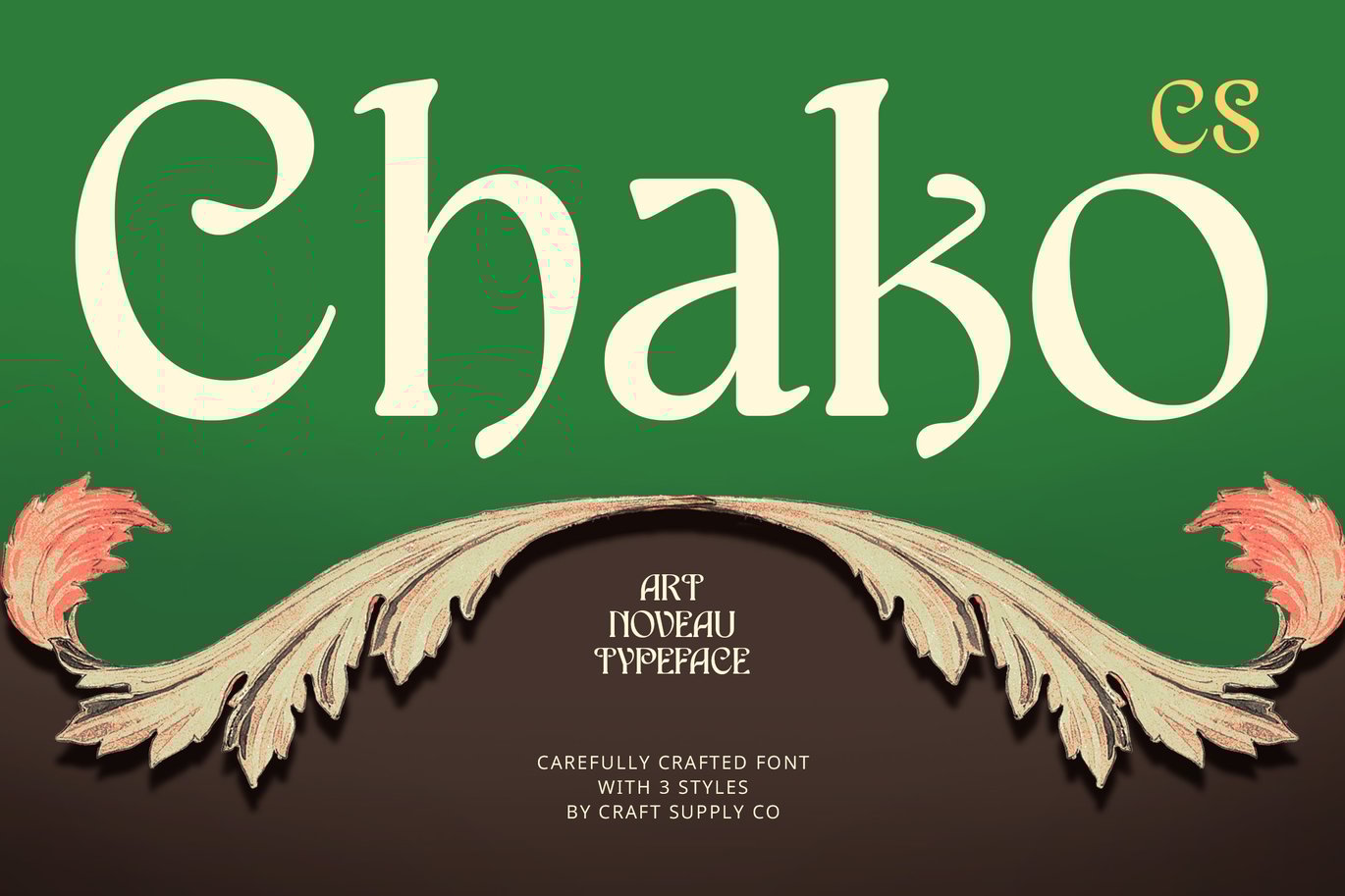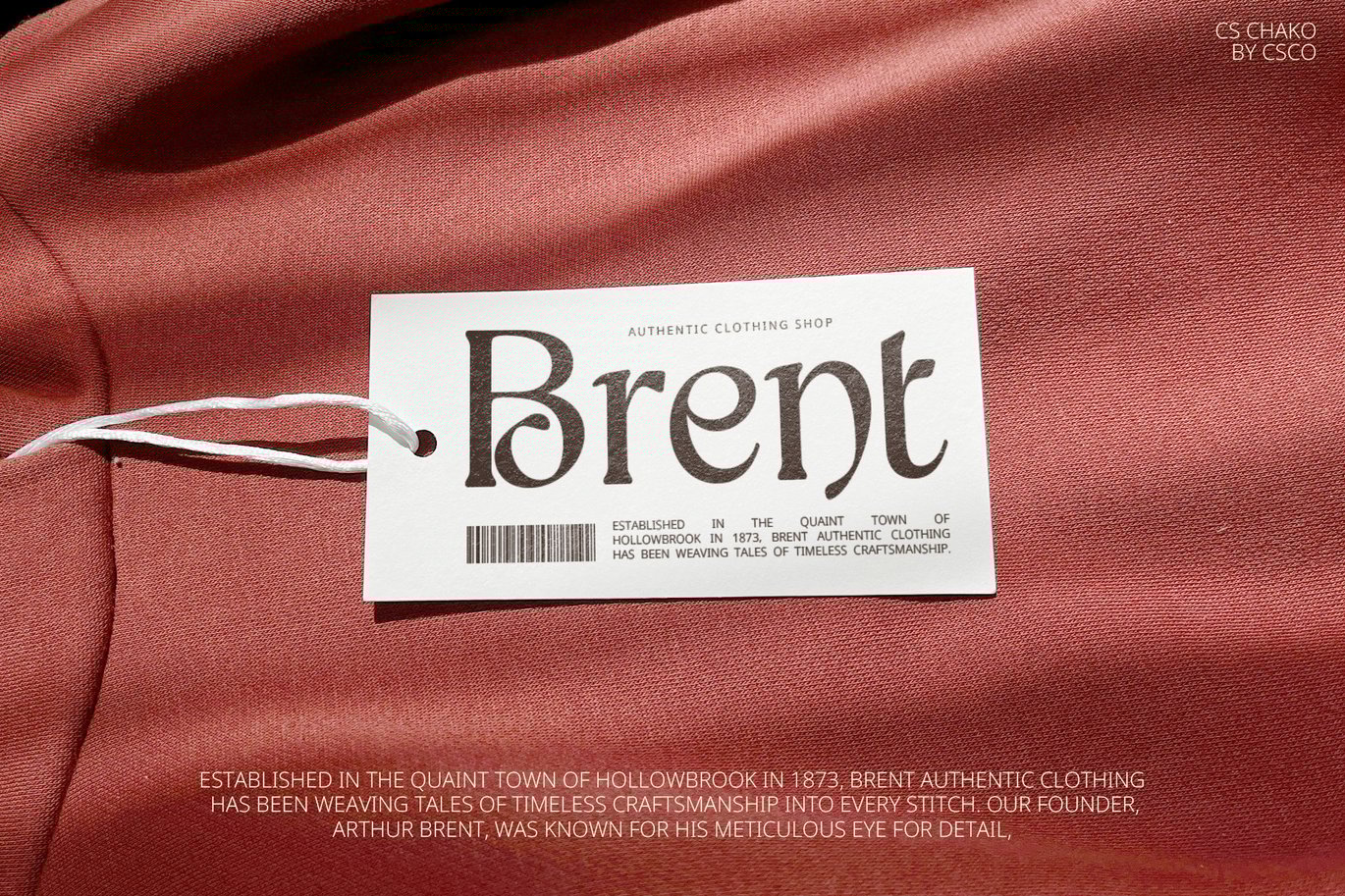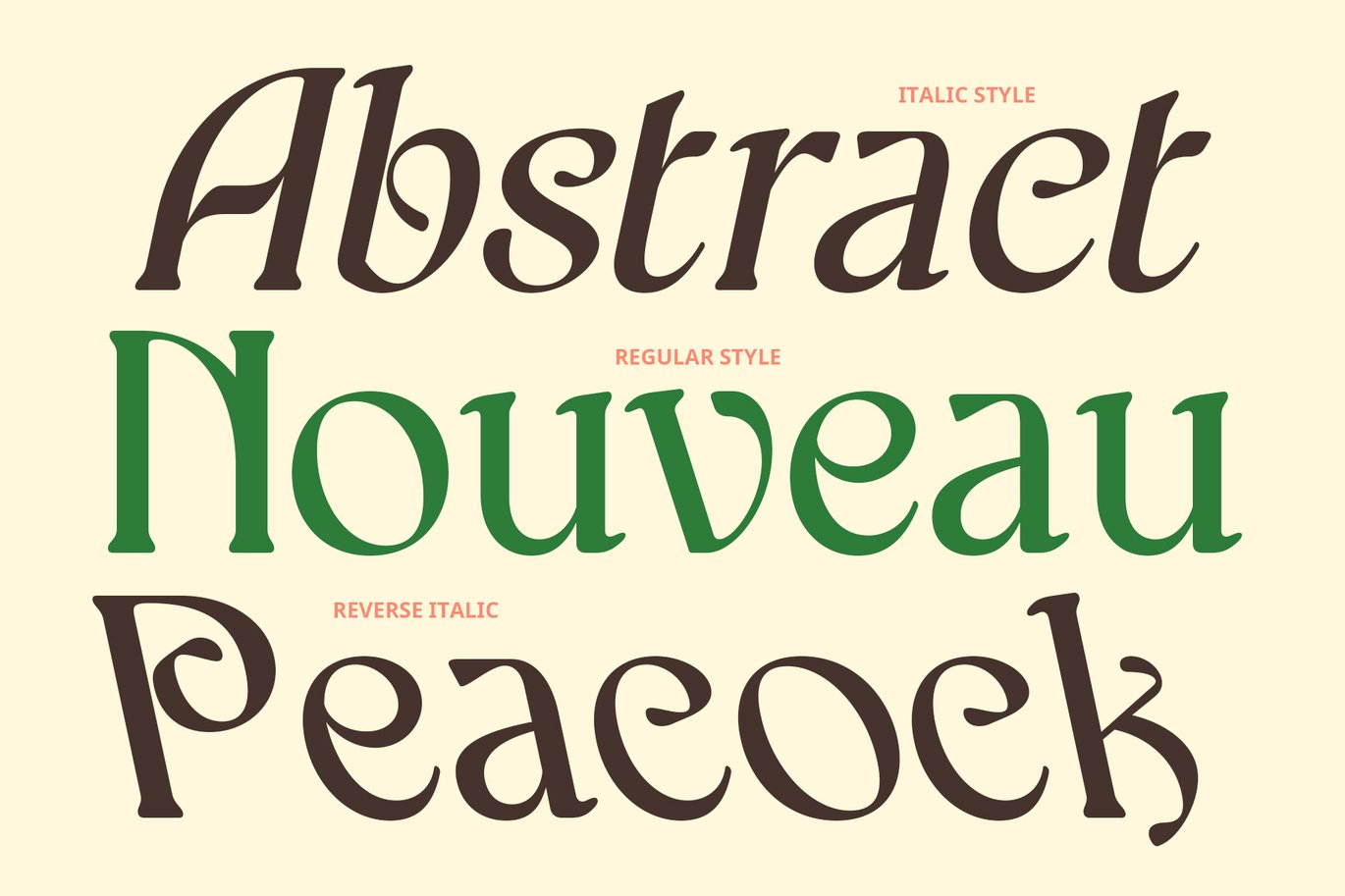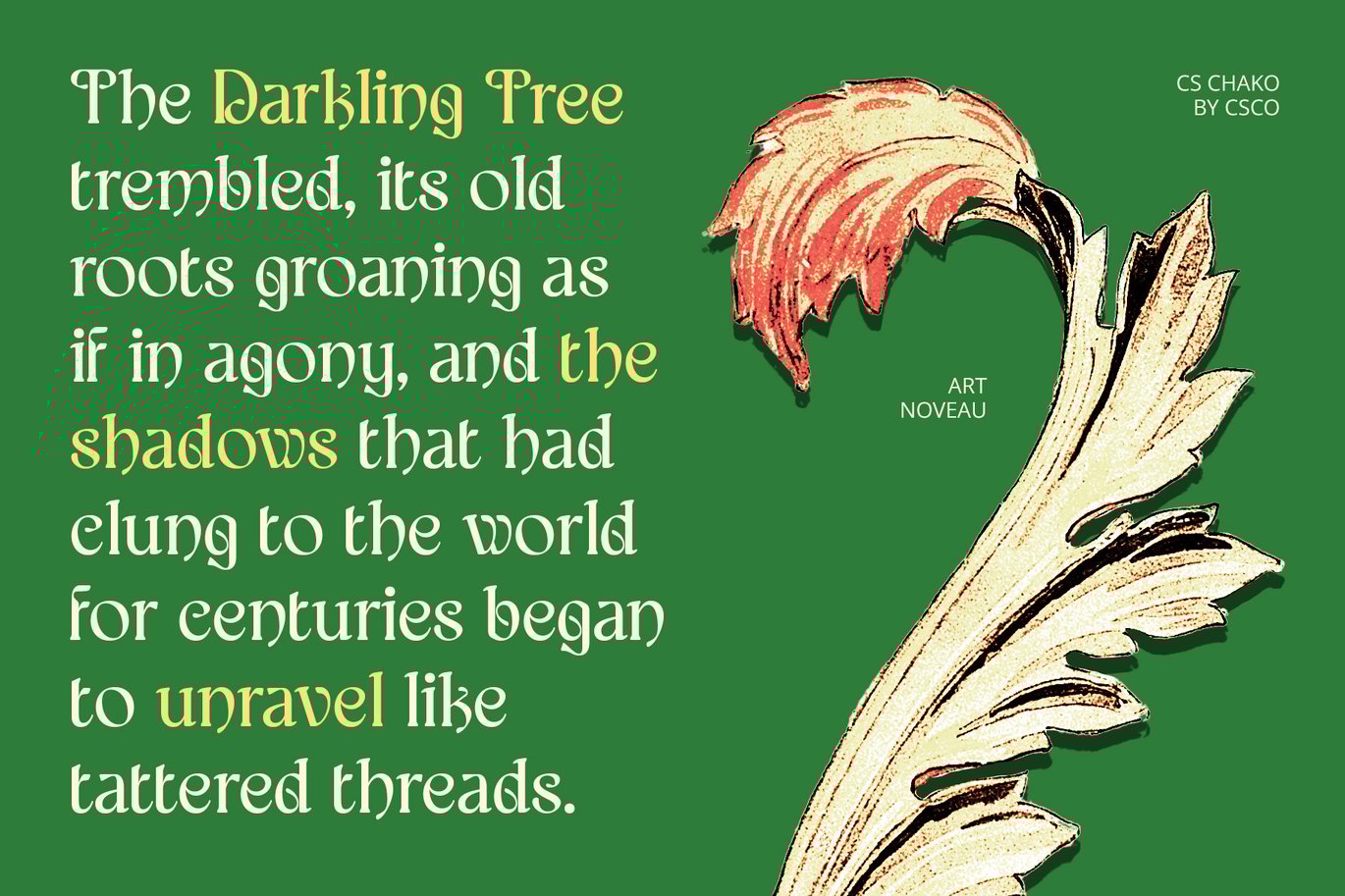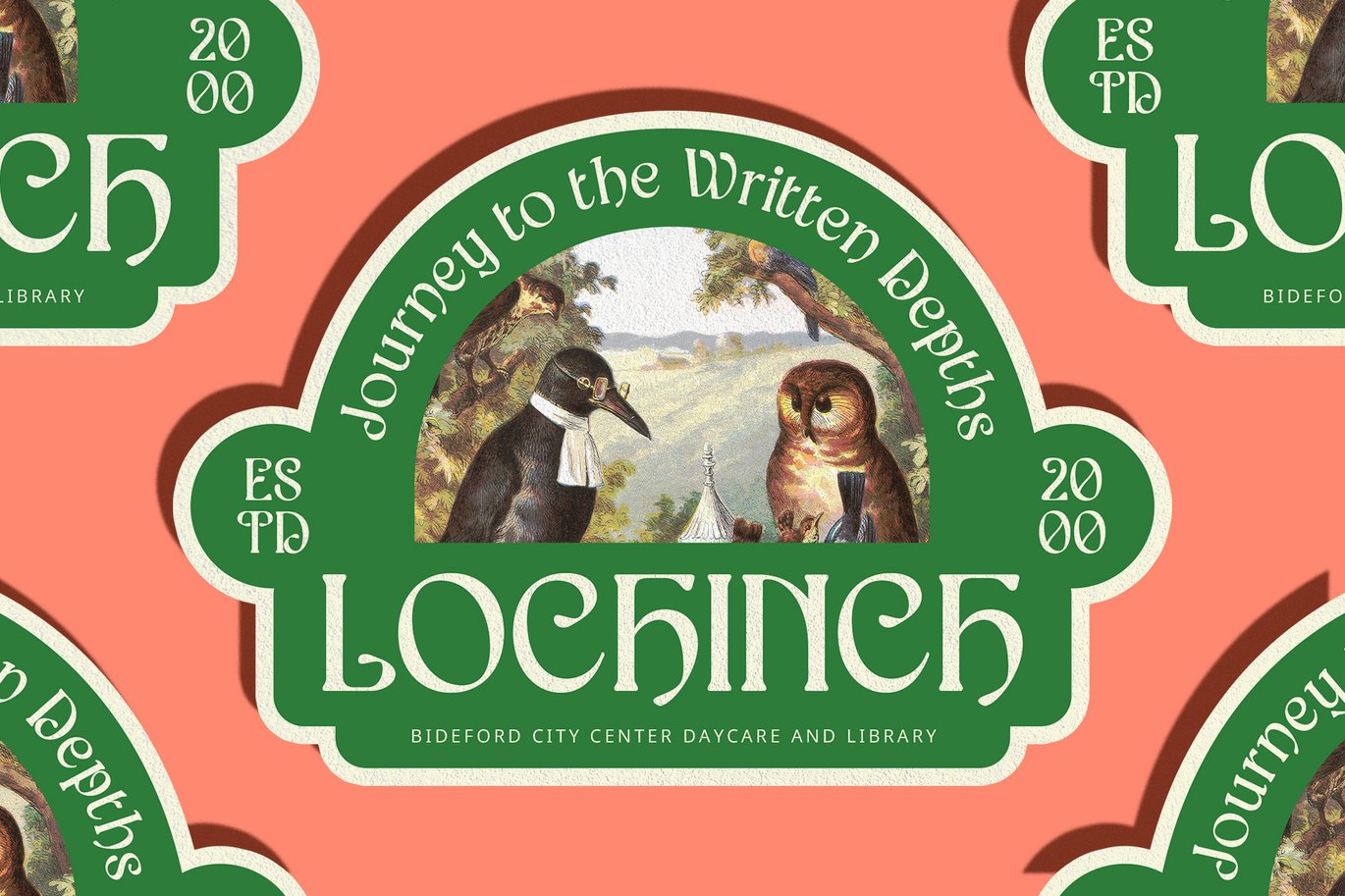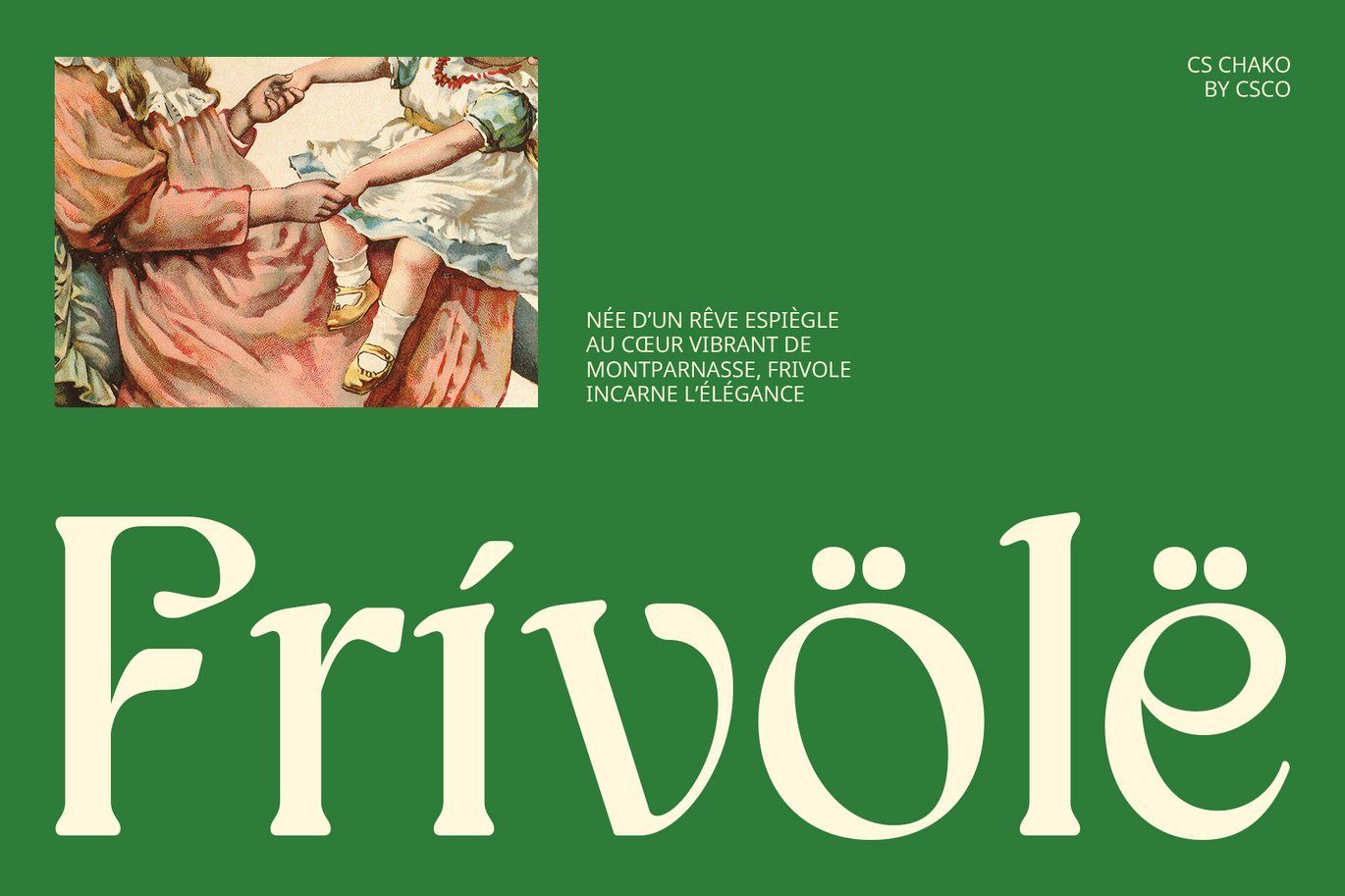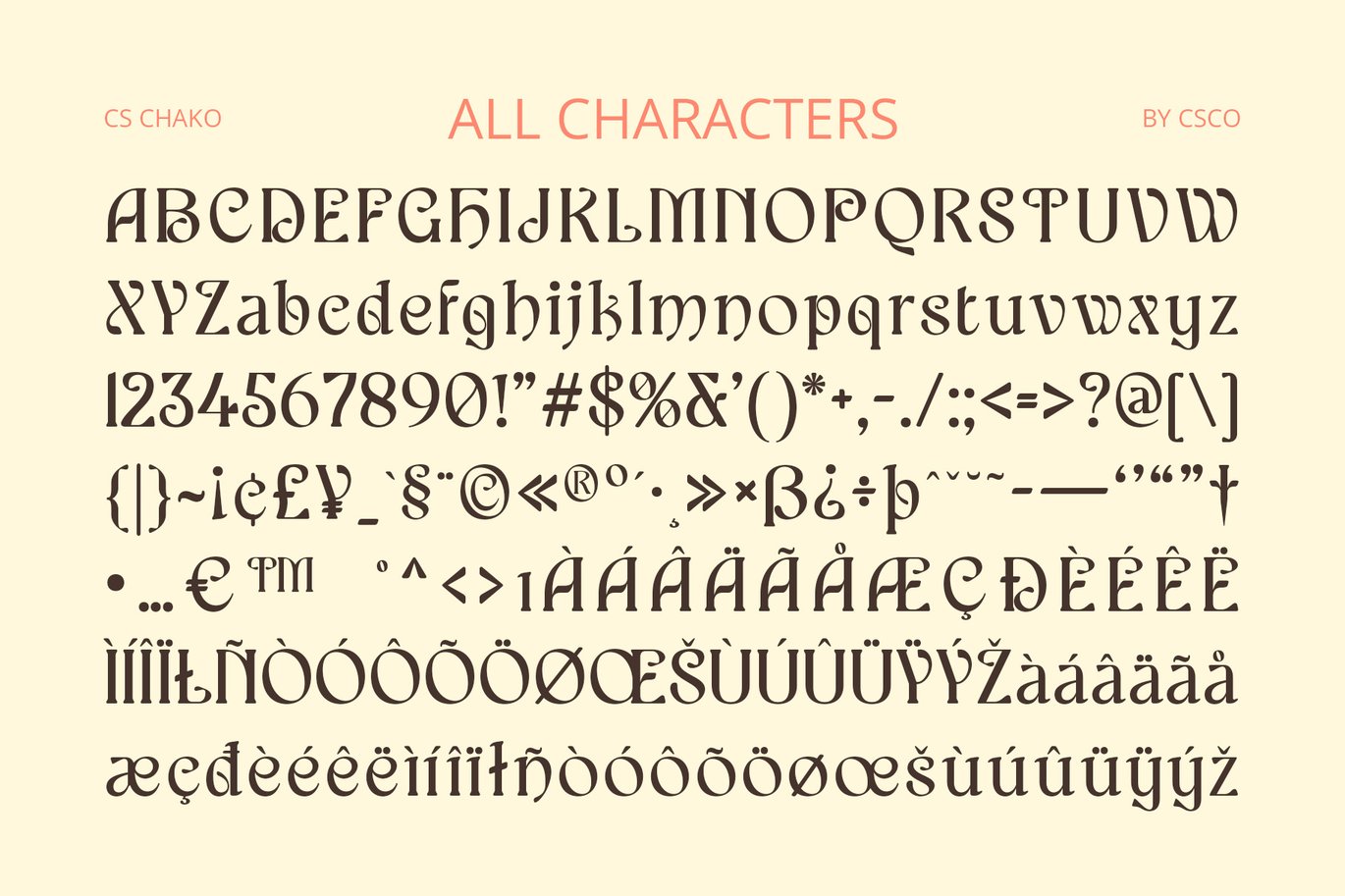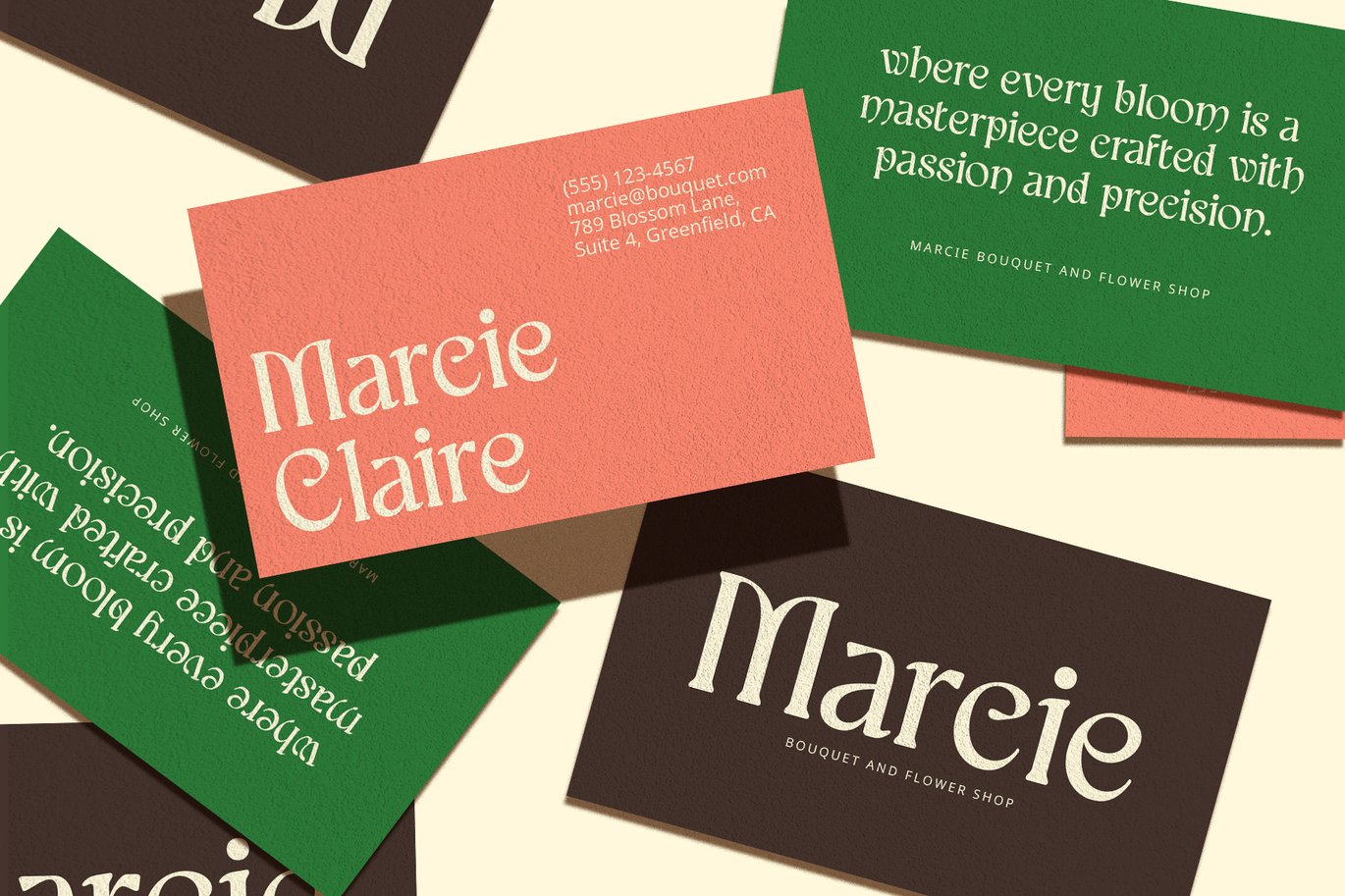
Chako – Art Nouveau Font
CS Chako – Art Nouveau Font: Elegance Meets Artistic Charm
Modern Serif with Art Nouveau Flair
CS Chako is a modern serif font infused with the captivating beauty of Art Nouveau. Its design features smooth lines, graceful curves, and intricate decorative details inspired by nature, such as flowers and leaves, embodying a timeless elegance.
Perfect for Graceful and Sophisticated Projects
This font is ideal for projects that require a touch of classic artistry. Whether it’s wedding invitations, luxury branding, or editorial designs, CS Chako brings a sense of grace and sophistication to your work, making it stand out with a refined, artistic appeal.
Nature-Inspired Details for a Timeless Look
Drawing inspiration from natural forms, CS Chako’s decorative details create a harmonious blend of traditional and modern elements. The result is a font that offers a timeless look, perfect for contemporary designs that seek to evoke the charm of classic artistry.
Elevate Your Designs with Classic Elegance
With CS Chako, you can transform any project into a work of art. The font’s combination of traditional Art Nouveau elegance with a modern twist ensures your designs remain both stylish and relevant, providing a unique blend of beauty and sophistication.